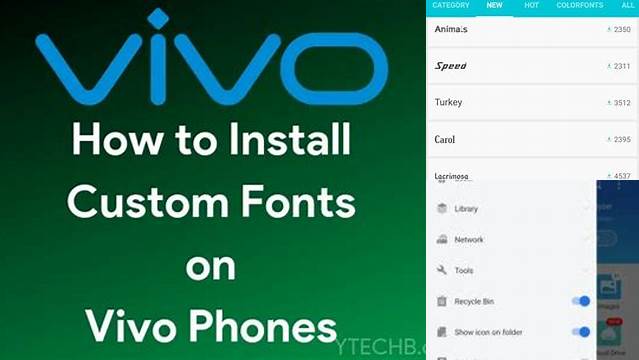
Vivo Themes & Fonts: Customize Your Phone's Look!
Hey guys! Ever feel like your phone is just⦠blah? Like it's missing that special something that screams YOU? Well, if you're rocking a vivo phone, you're in luck! vivo themes and fonts are here to save the day, letting you customize your device until it's a total reflection of your awesome personality. Let's dive deep into the world of vivo personalization and discover how you can transform your phone from generic to seriously stunning.
Unleashing the Power of vivo Themes
Let's talk themes, shall we? Themes are like complete makeovers for your phone's interface. We're talking wallpapers, icons, system colors β the whole shebang! With vivo themes, you can switch up the entire vibe of your phone with just a few taps. Feeling minimalist today? There's a theme for that. Want to embrace your inner maximalist? Yep, there are themes bursting with color and flair too. The beauty of vivo themes lies in their variety. You can find themes that are sleek and professional, playful and whimsical, or anything in between. Think of it as changing your phone's outfit every day β keeping things fresh and exciting. Seriously, guys, exploring different themes is like giving your phone a new lease on life. You might stumble upon a theme that you absolutely adore and wonder how you ever lived without it! Don't be afraid to experiment and try out different styles. You might surprise yourself with what you discover. A pro tip for you all: keep an eye out for seasonal themes! vivo often releases special themes for holidays and events, which is a super fun way to get into the spirit of the occasion. Imagine rocking a festive winter theme during the holidays or a vibrant summer theme when the sun is shining. Themes aren't just about aesthetics, though. They can also improve your phone's usability. Some themes come with custom widgets or shortcuts that make accessing your favorite apps and features even easier. Plus, a well-designed theme can make your phone more visually appealing, which can actually make it more enjoyable to use! So, guys, don't underestimate the power of a good theme. It can completely transform your vivo phone experience. Take some time to browse the Theme Store and find themes that resonate with you. You won't regret it!
Diving into vivo Fonts: A World of Typography
Okay, now let's talk about fonts! You might not think much about fonts, but trust me, they play a HUGE role in how you perceive text on your phone. Changing your font can give your phone a completely different feel. A bold font can make a statement, a cursive font can add elegance, and a playful font can inject some fun into your everyday interactions. With vivo fonts, you have the power to customize the typography across your entire phone, from system menus to messaging apps. Imagine reading your texts in a stylish, handwritten font or browsing the web in a clean, modern font. The possibilities are endless! The best part is that vivo offers a wide variety of fonts to choose from, so you're sure to find something that suits your taste. Whether you prefer classic fonts like Roboto and Open Sans or more unique and decorative fonts, you'll find plenty of options to explore. And it's not just about aesthetics, guys. Choosing the right font can also improve readability. If you find yourself squinting at your phone screen, try switching to a larger or bolder font. You might be surprised at how much of a difference it makes! Another cool thing about vivo fonts is that you can often adjust the font size and weight to further customize your reading experience. This is especially helpful if you have any visual impairments or simply prefer a larger or smaller font size. Pro tip: try different fonts for different purposes. You might want to use a formal font for emails and a more casual font for social media. This can help you create a distinct visual identity for different aspects of your digital life. So, guys, don't neglect your fonts! They're a powerful tool for personalization and can significantly impact your phone's overall look and feel. Take some time to experiment with different fonts and find the ones that speak to you. Your eyes (and your phone) will thank you!
Tips and Tricks for vivo Theme and Font Customization
Okay, you've got the basics down, but let's take your vivo theme and font game to the next level! I've got some tips and tricks that will help you create a phone that's not just personalized, but absolutely stunning. First up, let's talk about matching your theme to your wallpaper. This is a simple but effective way to create a cohesive and visually appealing look. If you're using a nature-themed wallpaper, try choosing a theme with earthy tones and natural elements. If you're rocking a minimalist wallpaper, a clean and simple theme will complement it perfectly. Another trick is to use custom icons. Many themes come with custom icons, but you can also download icon packs from the Google Play Store. This allows you to completely transform the look of your app icons and create a truly unique home screen. When it comes to fonts, consider the readability. A fancy font might look cool, but if it's difficult to read, it's not going to be very practical. Choose a font that's both stylish and easy on the eyes. And don't be afraid to adjust the font size and weight to find the perfect balance for your preferences. Guys, remember that less is often more. You don't need to cram your phone with tons of widgets and flashy animations to make it look good. Sometimes, a simple and clean design is the most effective. Experiment with different layouts and arrangements to find what works best for you. Another great tip is to use folders to organize your apps. This will keep your home screen clean and uncluttered, and it will also make it easier to find the apps you need. And speaking of apps, consider using a custom launcher. A launcher is the app that controls your home screen and app drawer. There are many custom launchers available on the Google Play Store, and they offer a wide range of customization options. A custom launcher can give you even more control over the look and feel of your phone. Guys, don't forget about widgets. Widgets are small, interactive elements that you can add to your home screen. They can display information like the weather, your calendar, or your favorite news headlines. Widgets can also be a great way to add functionality to your home screen. And finally, back up your customizations! This is super important, guys. If you ever have to reset your phone, you don't want to lose all your hard work. Many launchers and theme apps offer backup and restore features, so make sure to take advantage of them. So, there you have it! These tips and tricks will help you take your vivo theme and font customization to the next level. Get creative, have fun, and create a phone that's truly your own!
Conclusion: Your Phone, Your Style
So, guys, that's the lowdown on vivo themes and fonts! As you can see, there's a whole world of personalization possibilities waiting for you. From completely transforming your phone's look with themes to fine-tuning the typography with custom fonts, you have the power to create a device that truly reflects your style. Don't be afraid to experiment, try new things, and most importantly, have fun! Your phone is an extension of yourself, so make it something you love to look at and use. With vivo themes and fonts, you can say goodbye to generic and hello to uniquely you. Go forth and personalize, my friends! Your phone is your canvas β now go create a masterpiece!